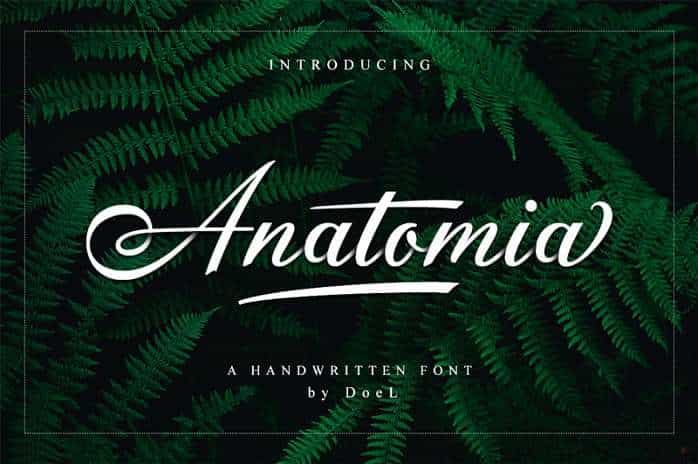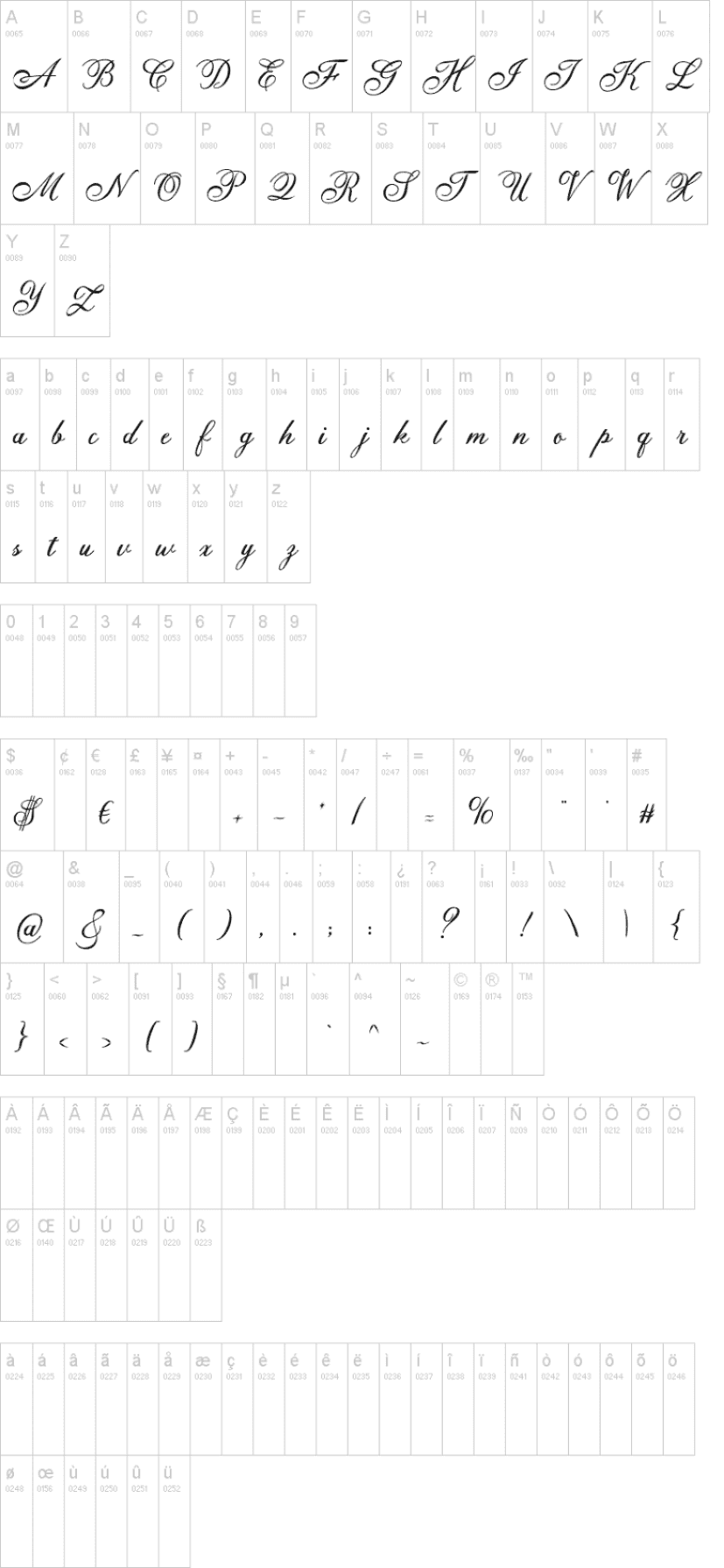
Anatomia is a clean and pure calligraphy font now that has been designed by a designer of Doel Creative and is available in the public domain for free download and its intent use only. The free one only includes the standard English alphabetical letters and a few special characters which are available in both uppercase and lowercase forms.